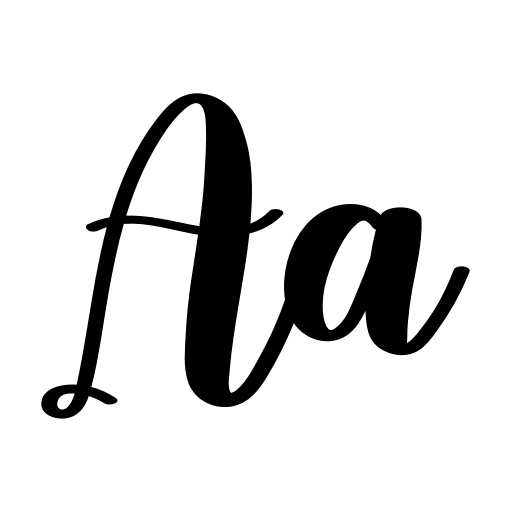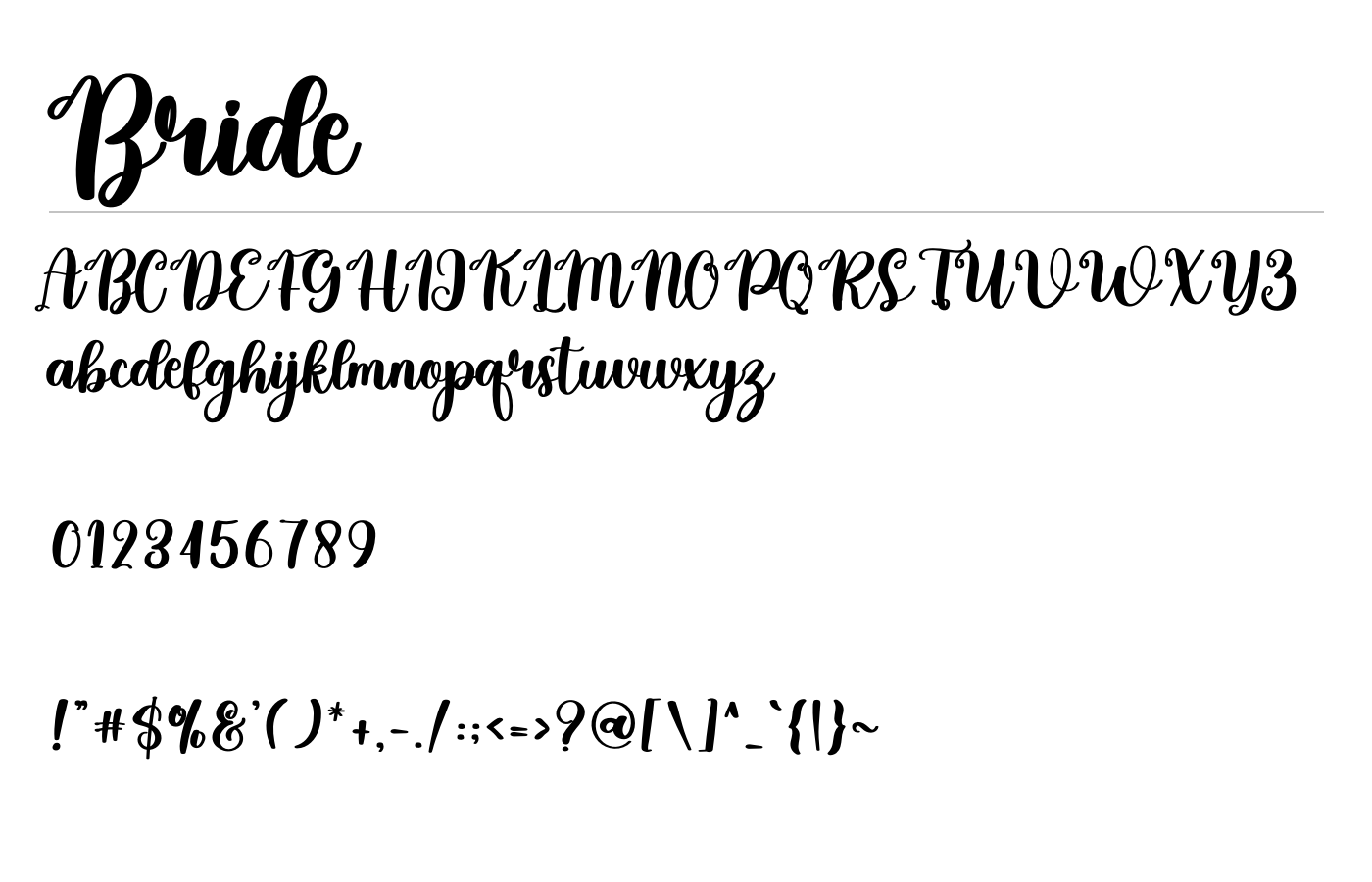
Bride Font is a stylish script typeface with bold, flowing strokes and a charming, hand-lettered feel. Its fluid curves and moderate contrast make it perfect for elegant wedding invitations, branding, and feminine designs that require a playful yet sophisticated touch. This font works well in headlines and decorative text where a warm, inviting personality is desired.
Bride Font
About Bride Font